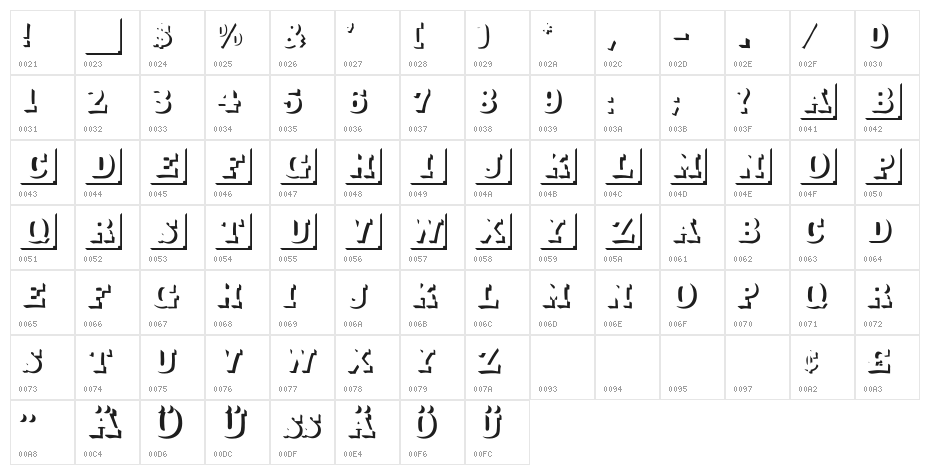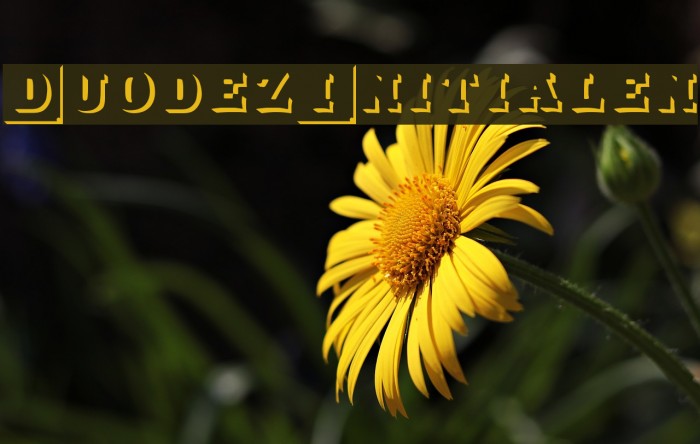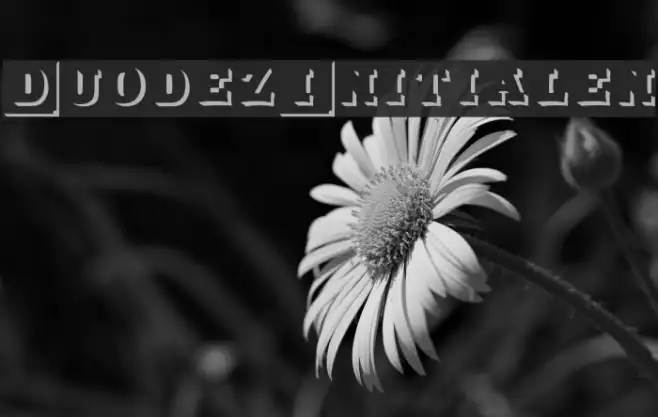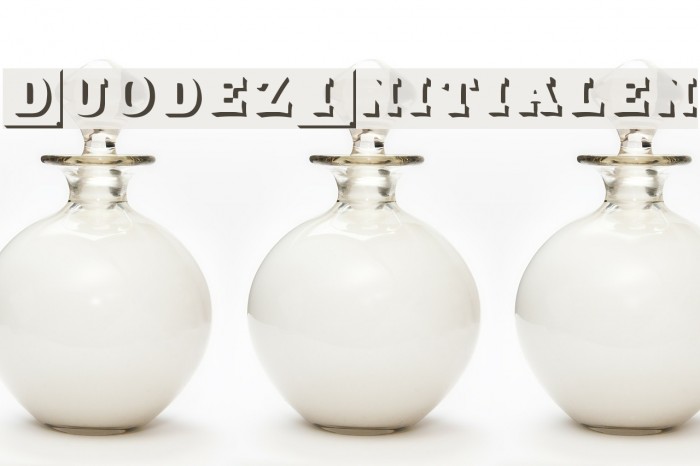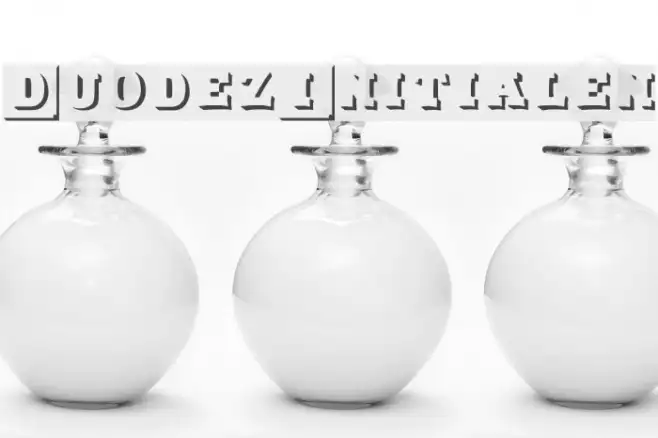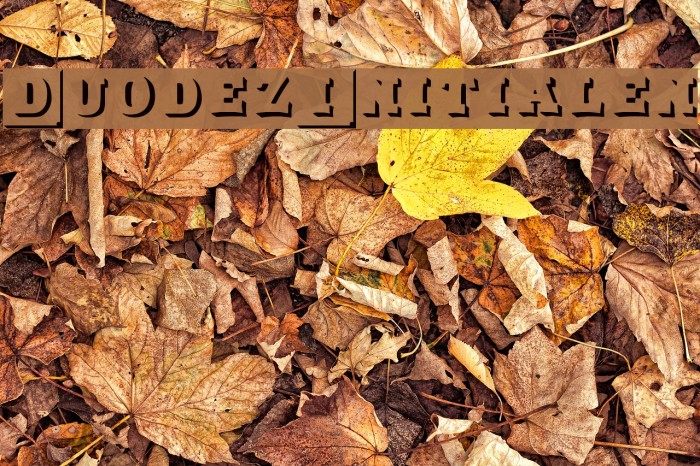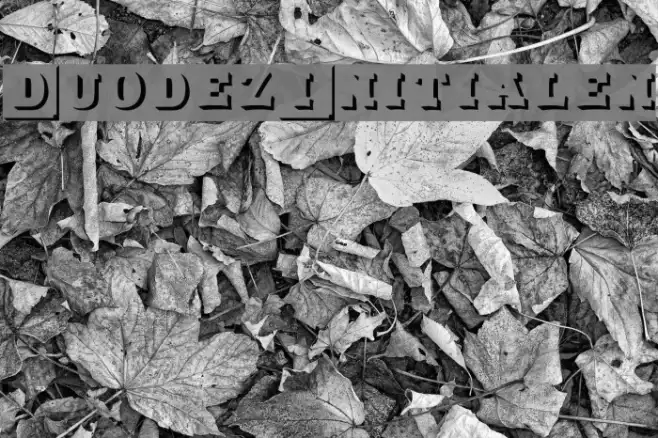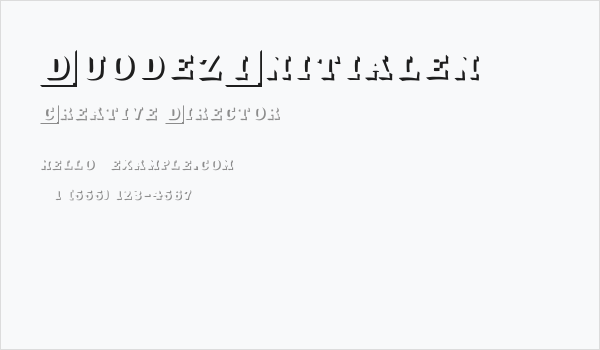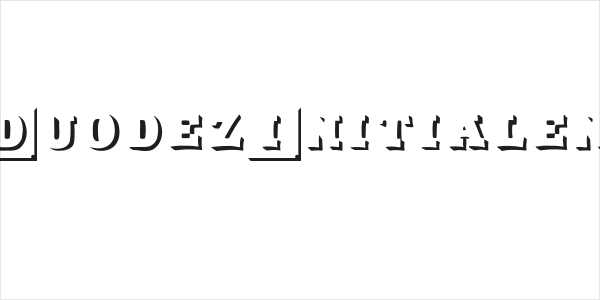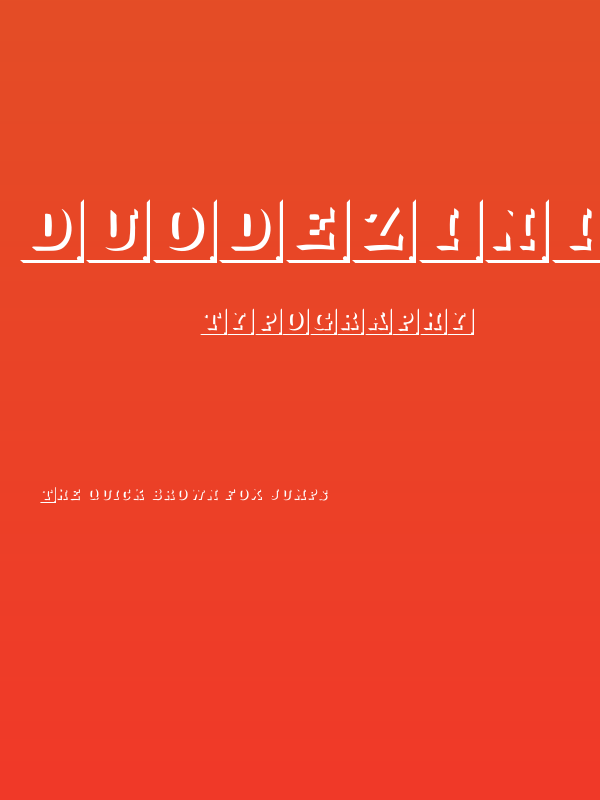
DuodezInitialen Font
DuodezInitialen Description
This font features a bold and decorative style with a distinct stencil-like appearance. Each character is enclosed in a square frame, giving it a structured and uniform look. The uppercase letters are prominently displayed with sharp edges and cut-out sections that create a unique visual effect. The numbers and special characters follow the same design principles, maintaining consistency across the set. This font is ideal for projects that require a strong and eye-catching display, such as posters, signage, or branding materials. Its boldness and decorative elements make it stand out, while the stencil effect adds a touch of industrial or military aesthetic.
| Proposed Projects | Ideal for posters, signage, branding, and any project needing a bold, industrial look. |